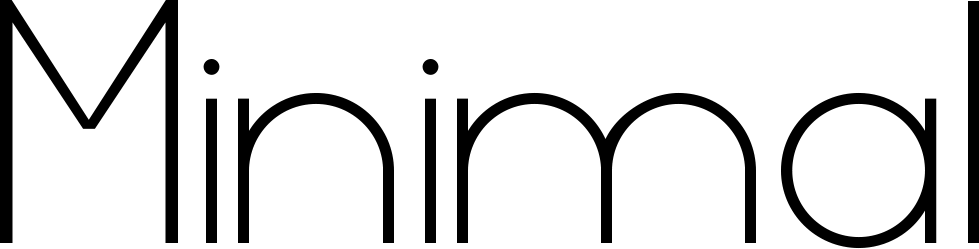
Minimal Font
Today’s introduction will level up the elegance of your words with a minimal look! Minimal is luxurious and will convey this look to your text perfectly. You can use this sans serif font for any classy texts and headlines, beauty product designs, fashion blog banners, personal blogs, and magazine headlines.